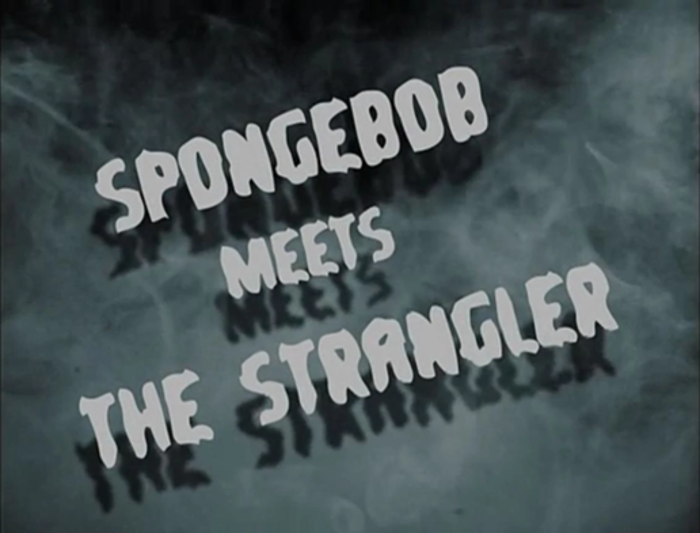
Spongeboy kontra Dusiciel Font
This font is based on the title card of the SpongeBob episode, SpongeBob Meets the Strangler, a strangler named Tattletale Strangler. Strangler gets a criminal attempts to get revenge on SpongeBob.